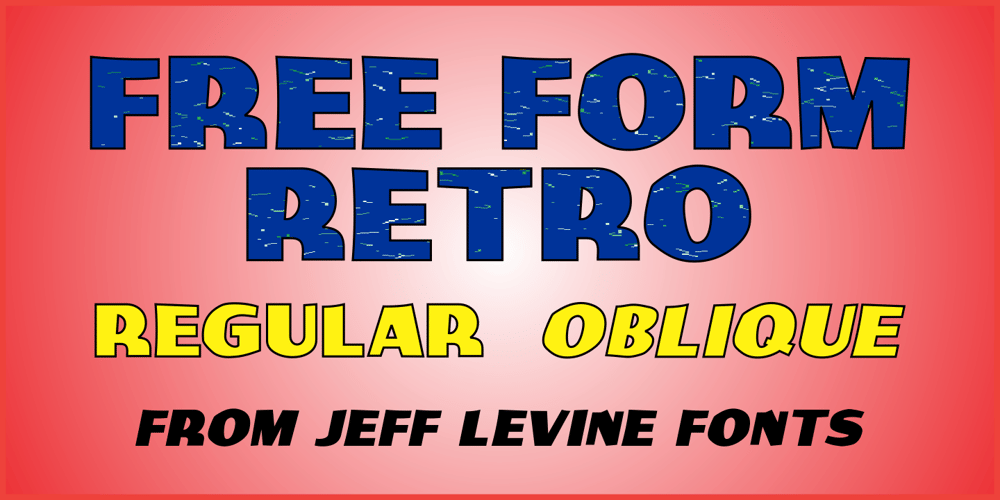
Free Form Retro JNL Font Family was designed by Jeff Levine and published by Jeff Levine. Free Form Retro JNL contains 2 styles and family package options. The titles and credits from the 1960 French film “Le Passage Du Rhin” (English release title: “Tomorrow is My Turn”)” are hand made in a free form bold alphabet resembling both cut paper and quickly sketched lettering.This avant garde style inspired the digital type revival, which is available in both regular and oblique versions.